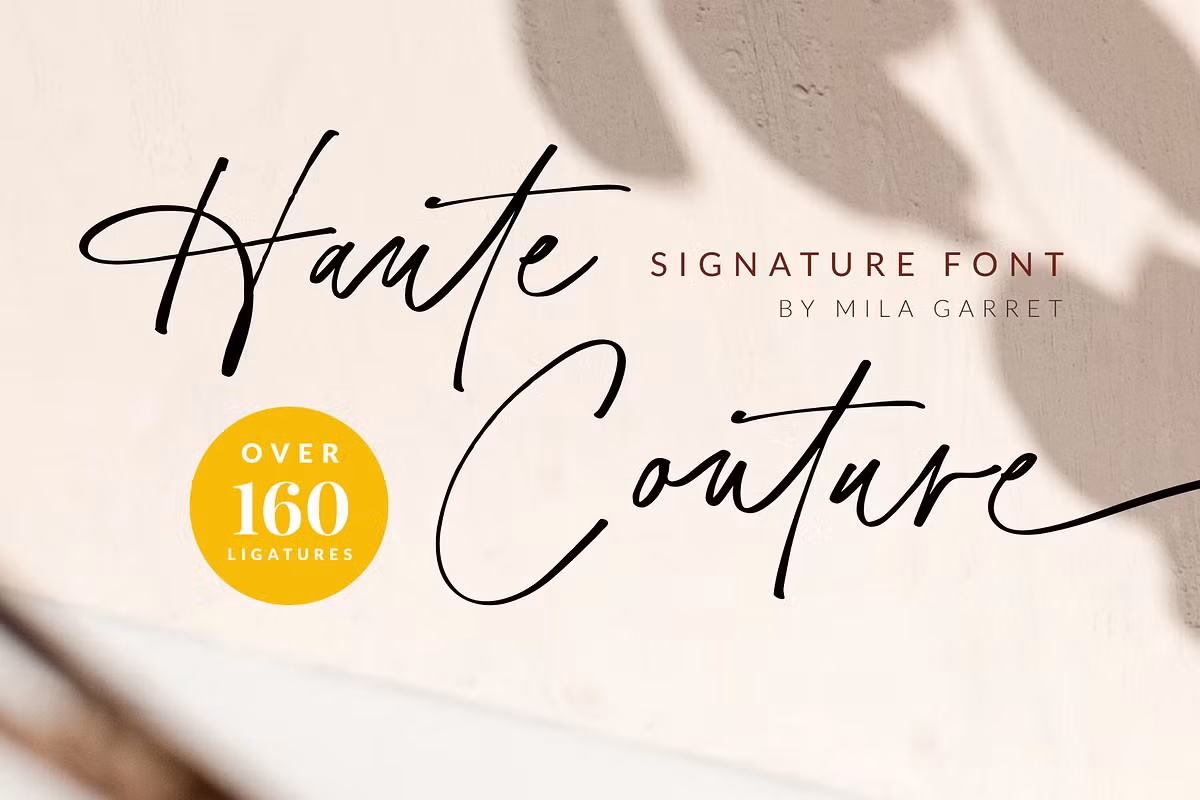
HauteCouture Handwritten Script Font Free Download is an elegant and sophisticated script typeface designed with fashion, luxury, and personal flair in mind. With its graceful curves, natural flow, and beautifully crafted letterforms, this font is perfect for high-end branding, wedding invitations, fashion editorials, and creative design projects that require a touch of class and style.
Its handwritten quality gives it a personal and authentic feel, while the refined structure makes it suitable for both formal and modern design needs. Whether you're working on a luxury brand logo, social media graphics, or upscale invitations, HauteCouture brings an air of elegance to any project.